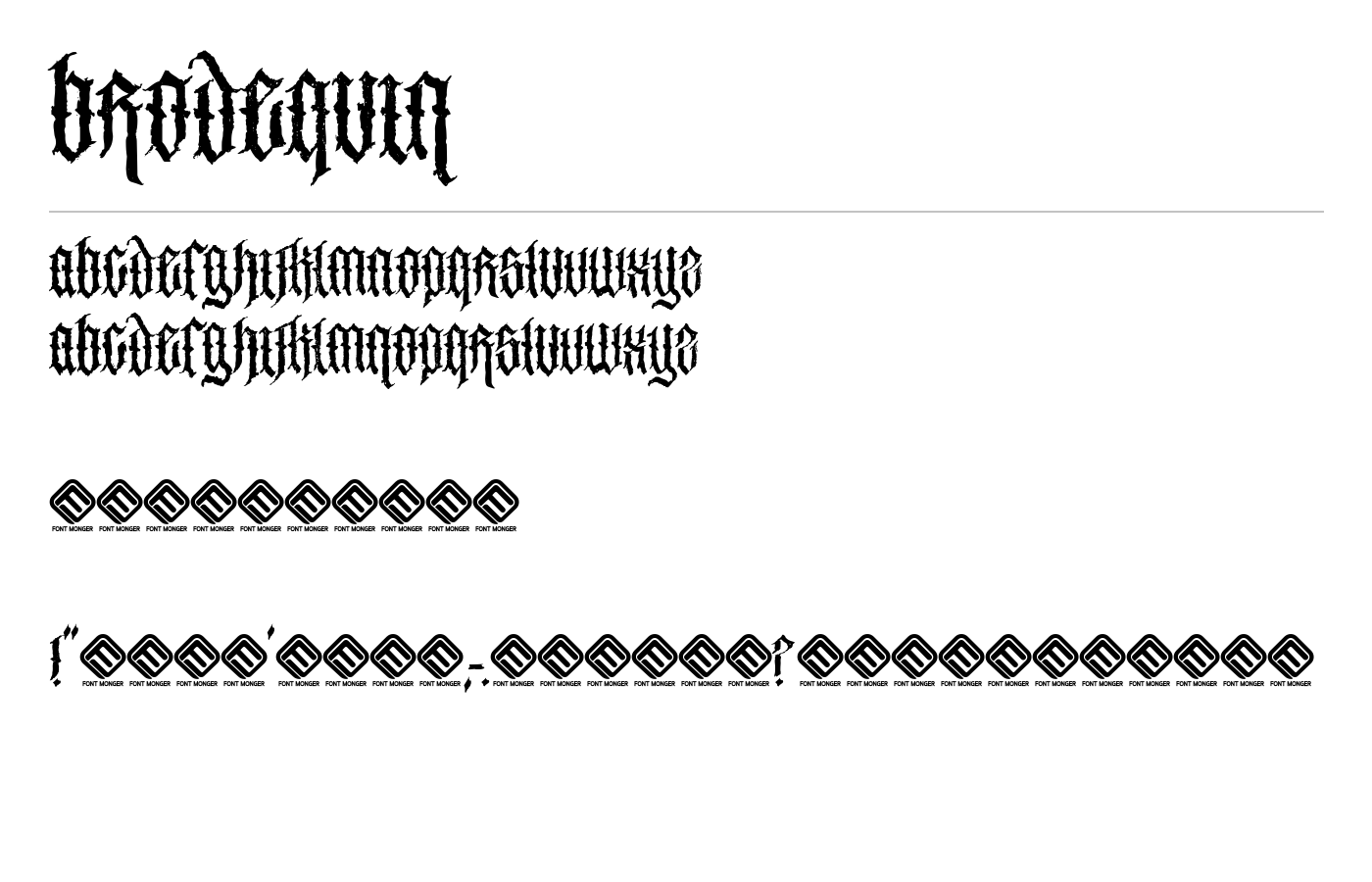
Brodequin is a distinctive blackletter-style font featuring tall, narrow letterforms with sharp, angular strokes and a high contrast between thick and thin lines. Its ornate, gothic appearance conveys a historic, medieval vibe, making it ideal for decorative use in logos, posters, or branding that seeks a dramatic, vintage, or darkly elegant mood. This font is best suited for headings and display purposes rather than body text due to its intricate and stylized character shapes.
Brodequin Font
About Brodequin Font
| Font family | Brodequin Font |
| Designer | Chris Vile |